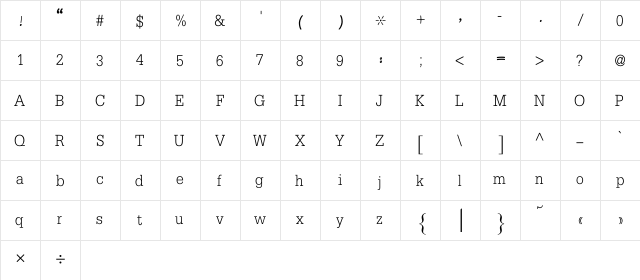
Mangrio_Aziz_Voiceofsindh.net_L Regular
| Designer | Abdul-Aziz Mangrio |
Design Context for Mangrio_Aziz_Voiceofsindh.net_L Typeface
Mangrio_Aziz_Voiceofsindh.net_L offers clean, dependable letterforms without strong stylistic allegiance, making it a practical choice for designers who need flexibility.